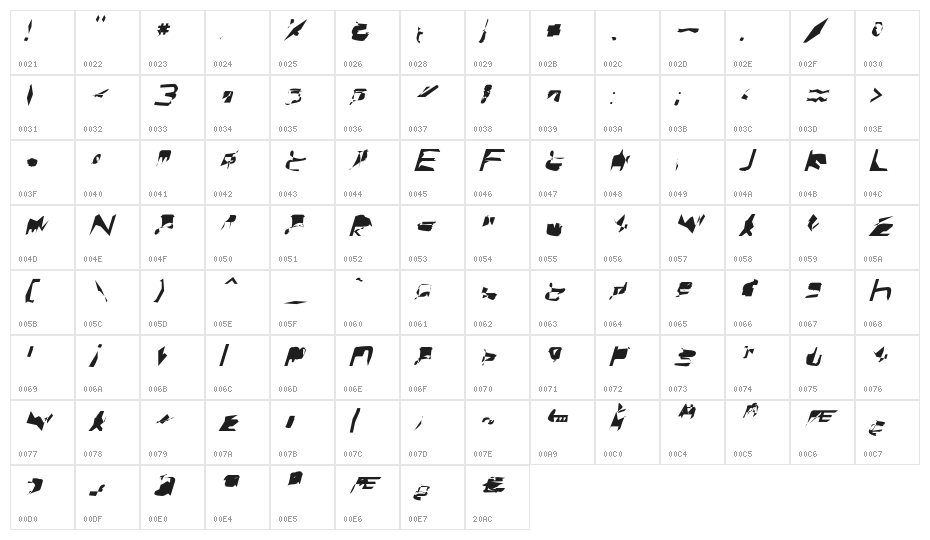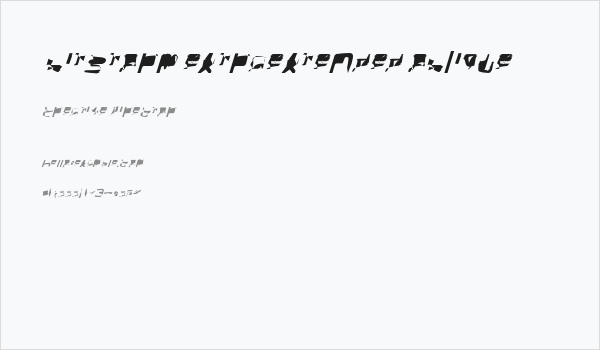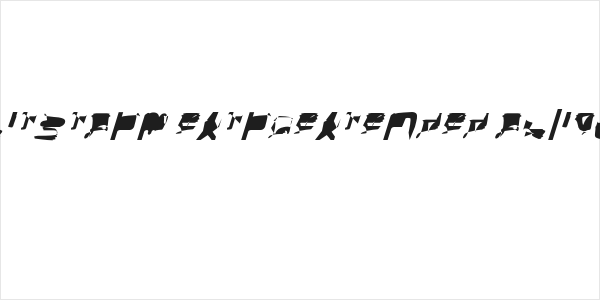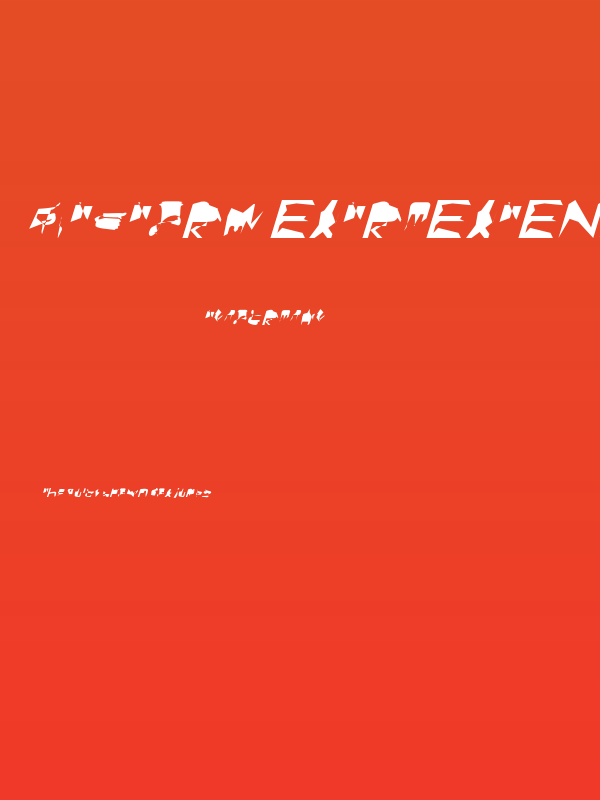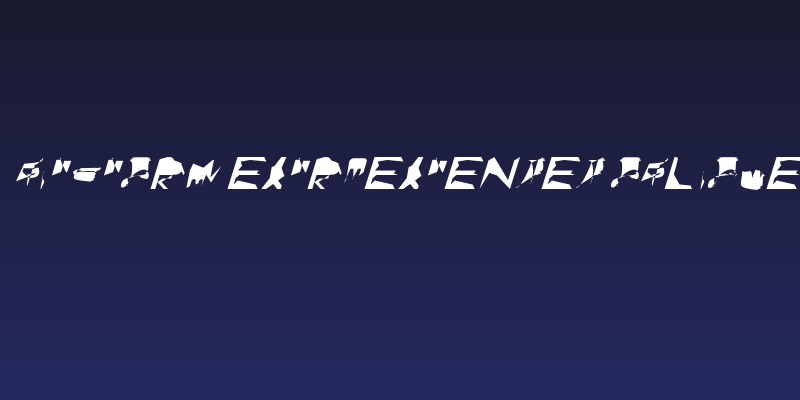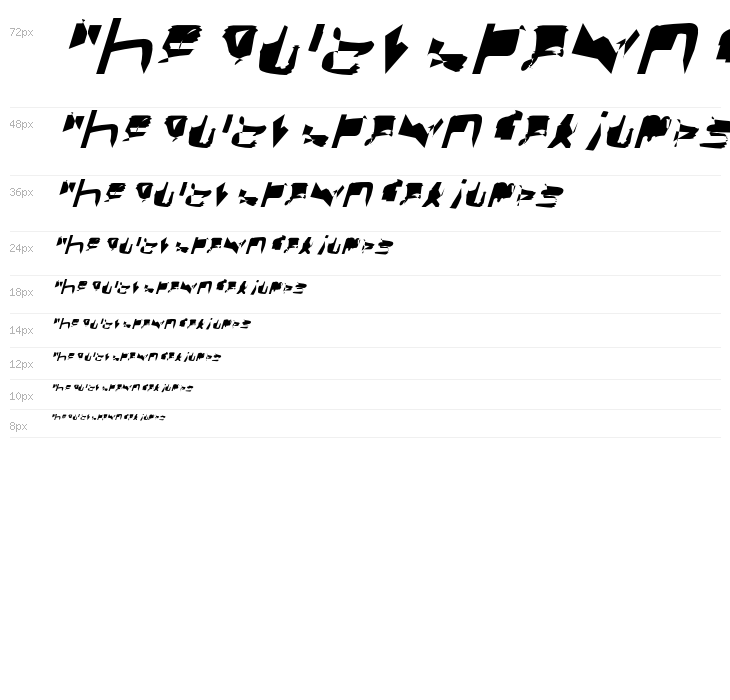
bitstorm extraextended oblique Font
bitstorm extraextended oblique Description
This font features a highly stylized and fragmented appearance, with characters that seem to be in motion or partially eroded. The design is bold and dynamic, with sharp angles and irregular shapes that give it a futuristic and edgy feel. The letters are slanted, adding to the sense of movement and energy. This font is not suitable for body text due to its complex and abstract nature, but it can make a striking impact in headlines or artistic projects. The unique style makes it stand out, but it may require careful consideration of context to ensure readability.
| Overall Style | Futuristic, Edgy |
| Use Case | Headlines, Artistic projects, Branding |
| Proposed Projects | Ideal for use in modern art projects, edgy branding, music album covers, or sci-fi themed designs. |